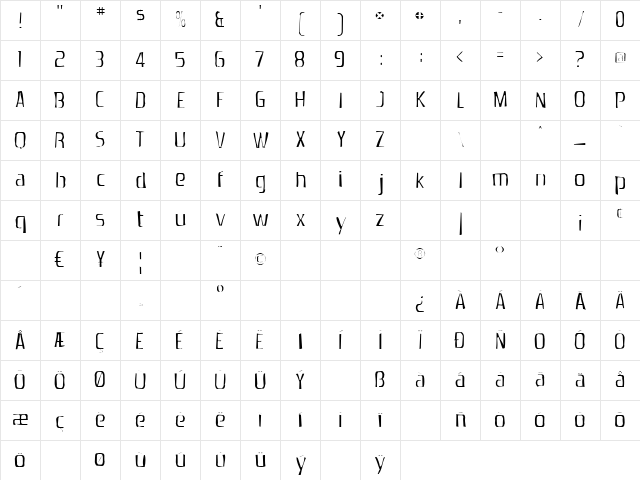
Zrnic Gaunt Regular Free Font
Zrnic Gaunt Regular
Design Context for Zrnic Gaunt
Zrnic Gaunt is a composed and adaptable typeface that performs quietly and consistently across a wide range of design contexts.